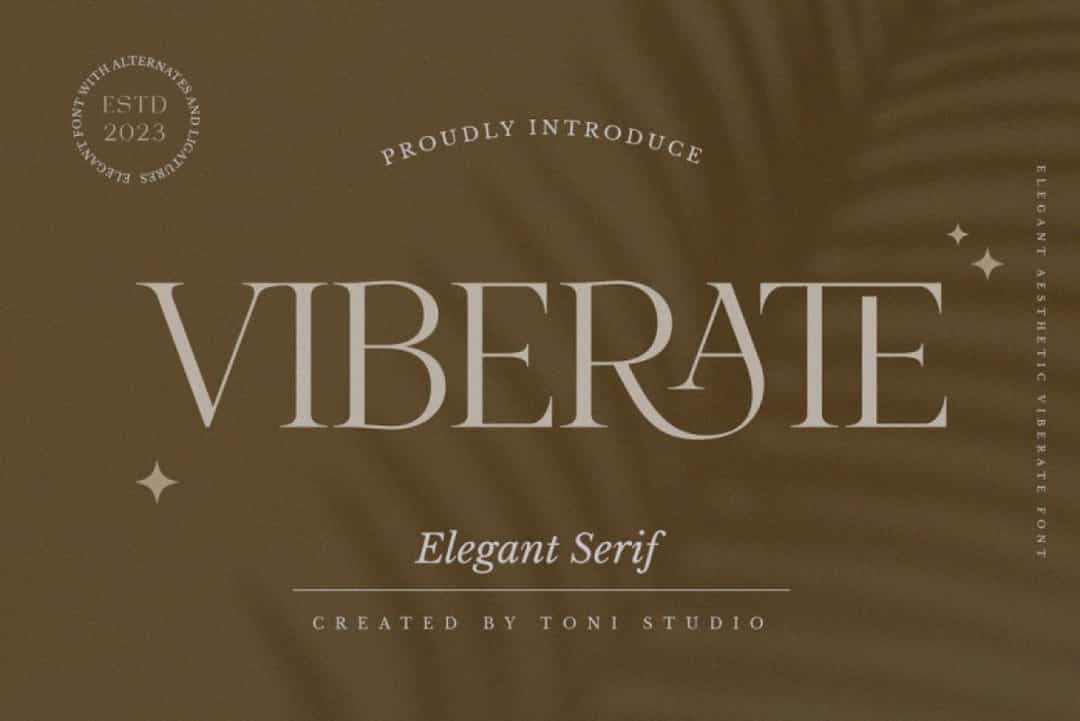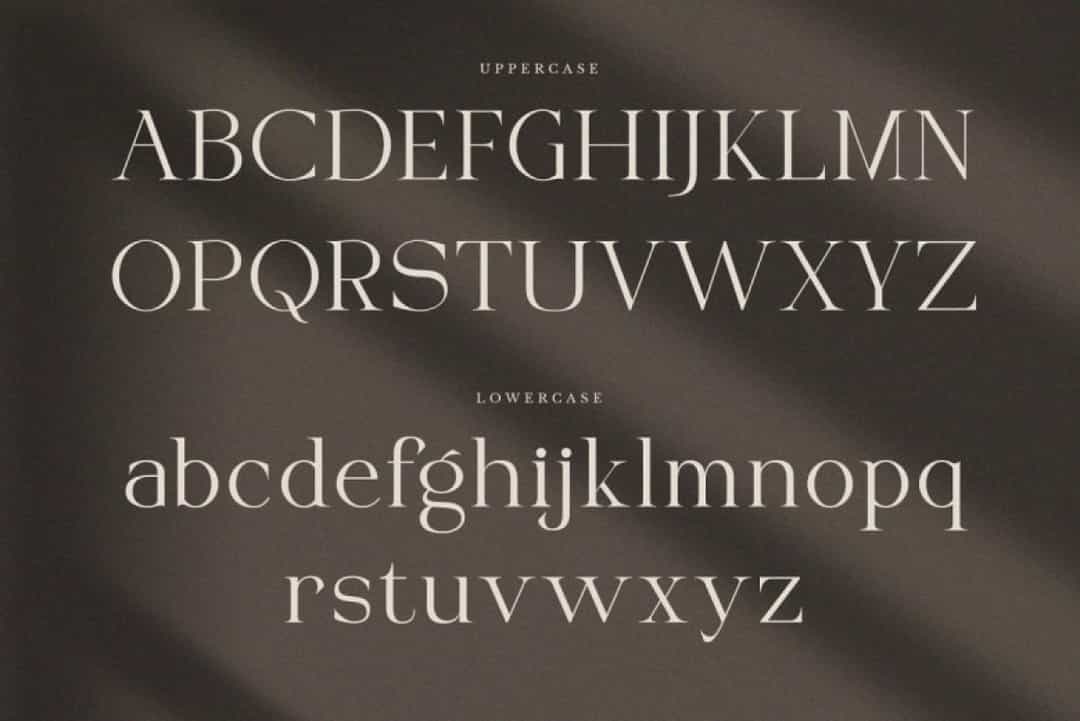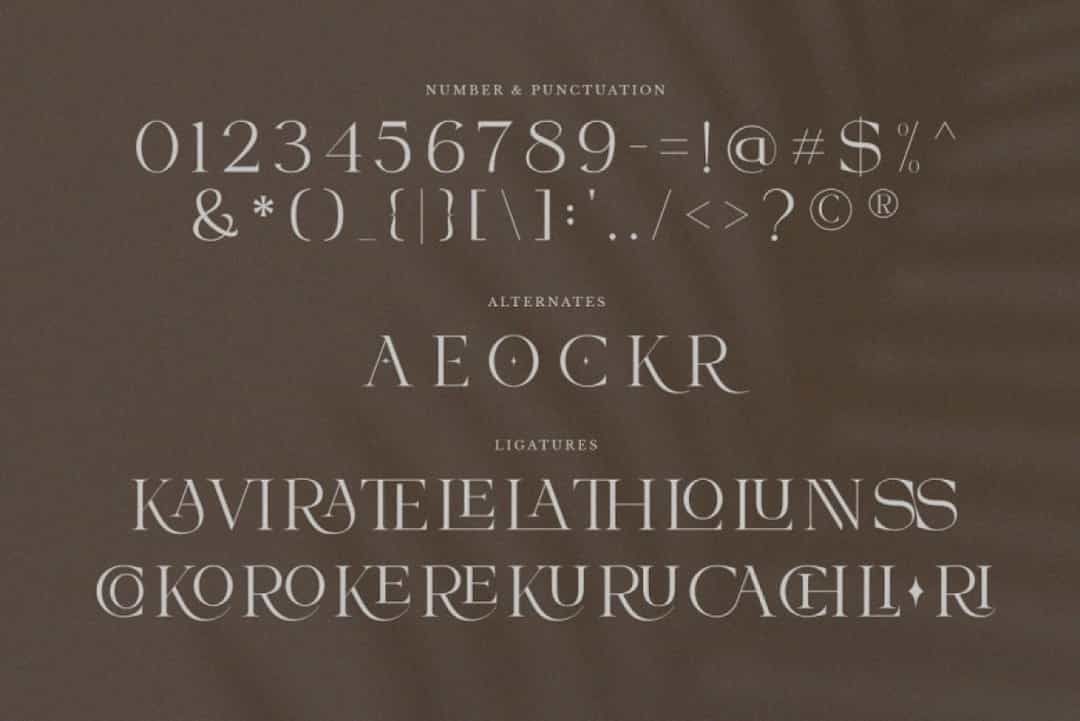
Viberateis an elegant modern serif font created and designed by ToniStudio. Featuring soft curves paired with bold contrast glyphs for an ethereal and feminine aesthetic, with clean straight lines and subtle serifs creating the ideal mix between traditional and modern aesthetics.